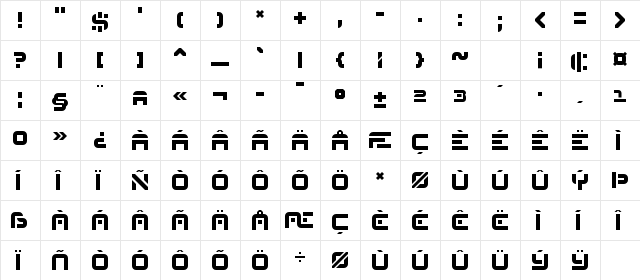
Reqruit Mk 2 Regular
Design Context for Reqruit Mk 2 Typeface
Reqruit Mk 2 is a composed and adaptable typeface that performs quietly and consistently across a wide range of design contexts.
Pro Tip: Pair Reqruit Mk 2 with a font of contrasting weight or personality to build a more expressive typographic hierarchy.